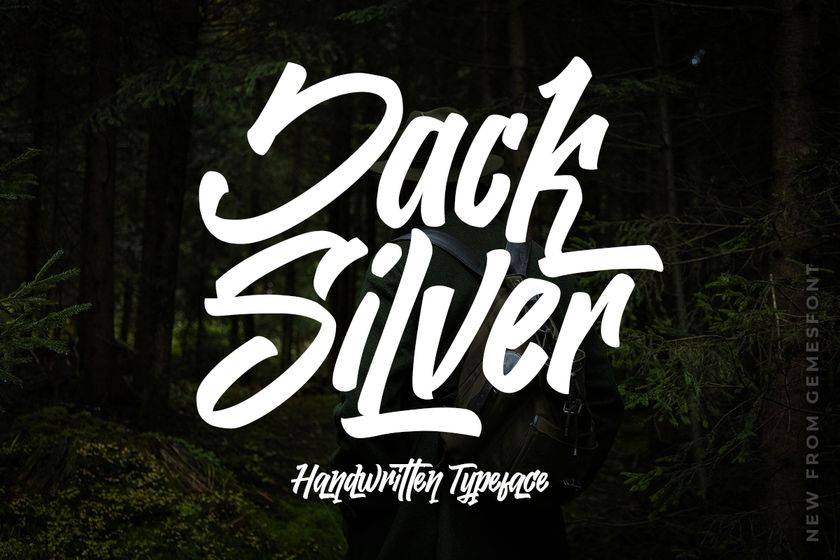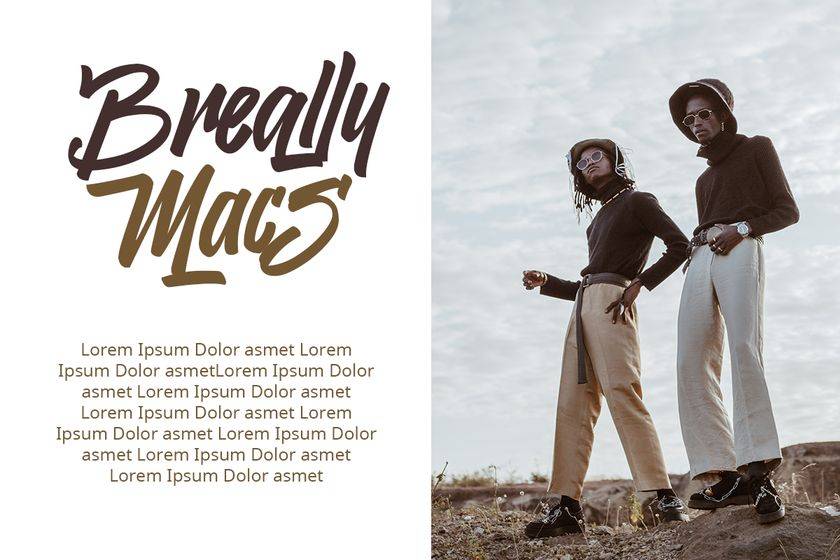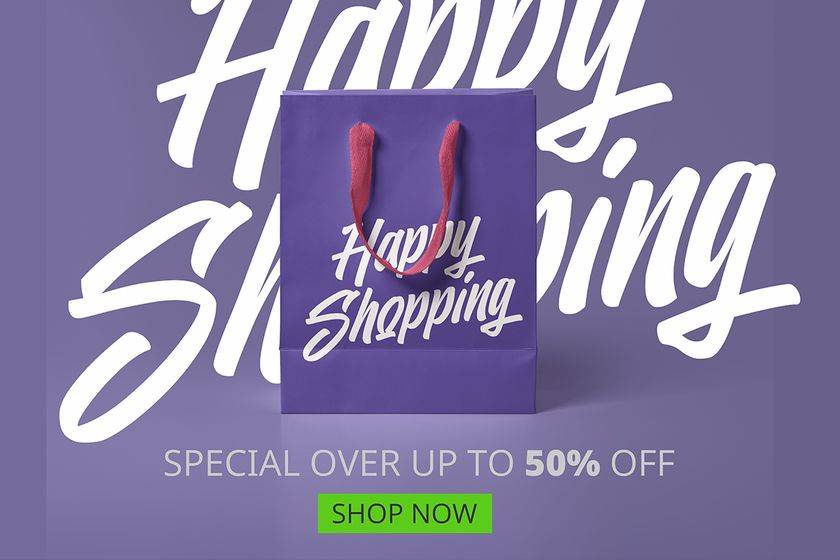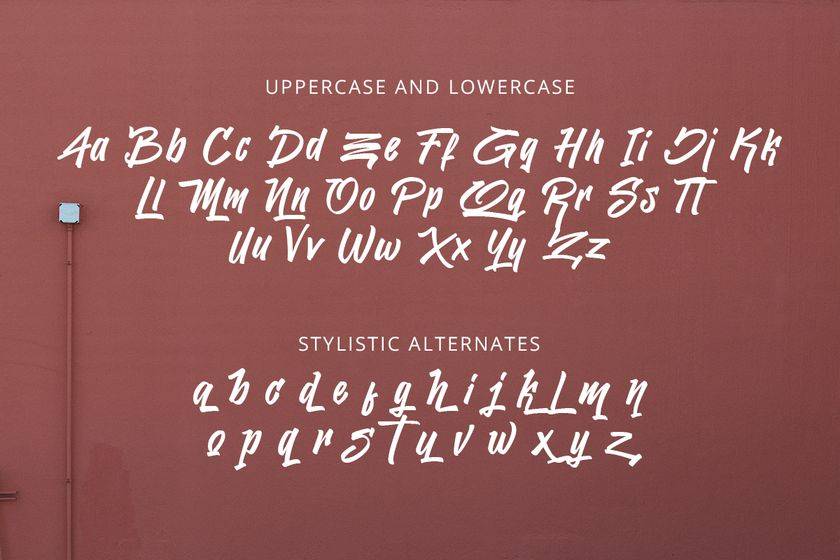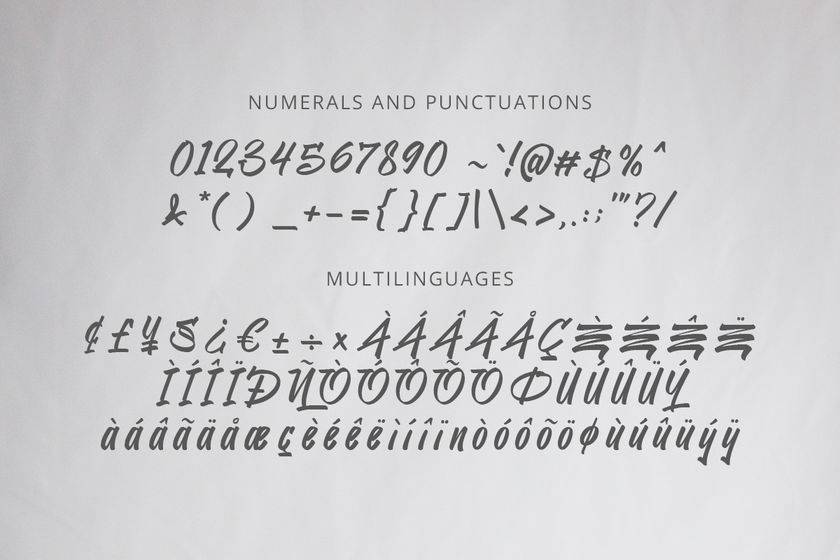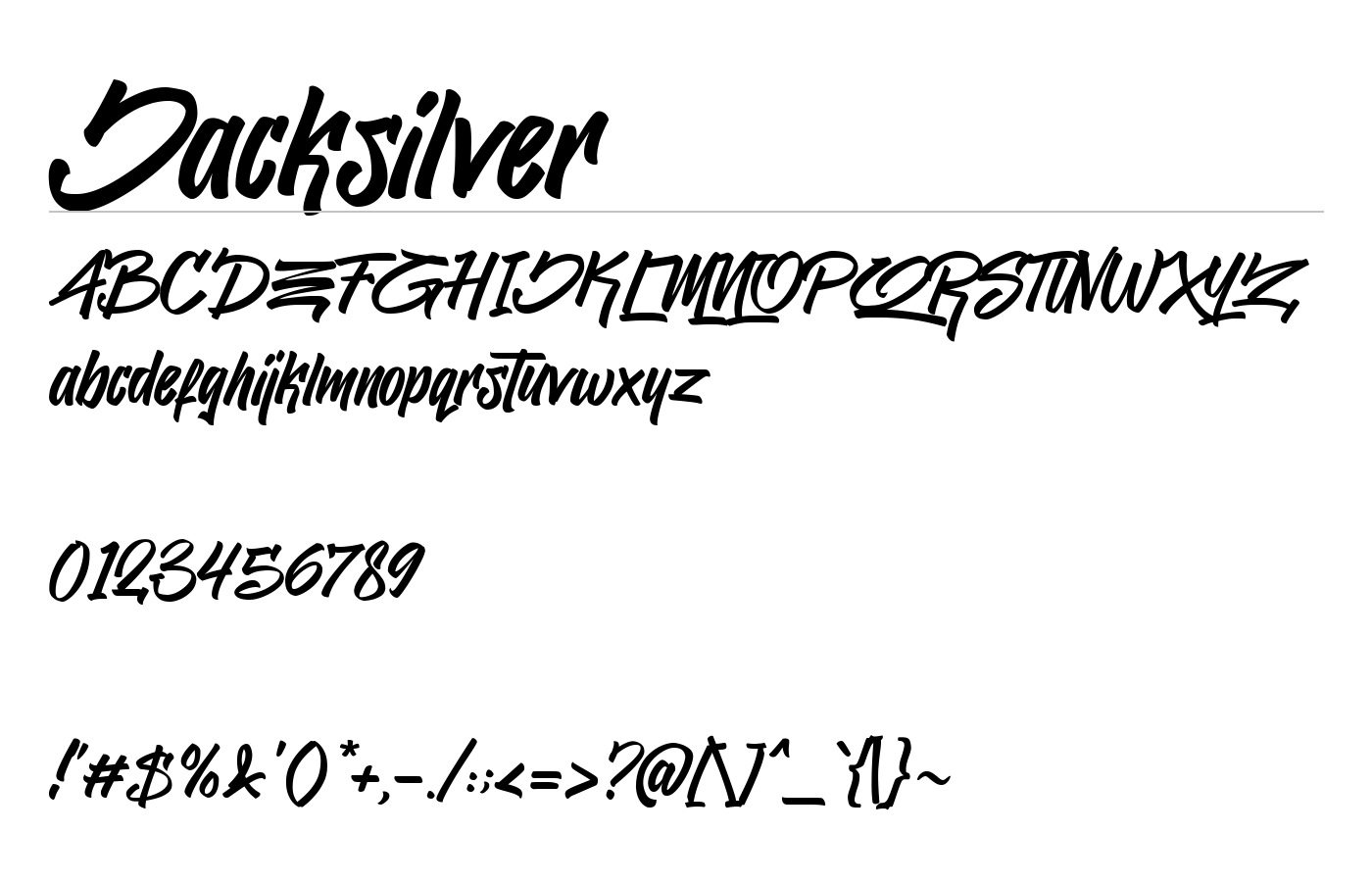
Jack Silver is a bold and energetic script font with a brush-style flair, featuring dynamic, slightly condensed letterforms that convey a lively, modern feel. Its high contrast strokes and playful, handwritten character make it ideal for creative branding, posters, and headlines where a fresh, urban vibe is desired. This font stands out best in eye-catching designs that need personality and a spirited touch.
Jack Silver Font
About Jack Silver Font
| Font family | Jack Silver Font |